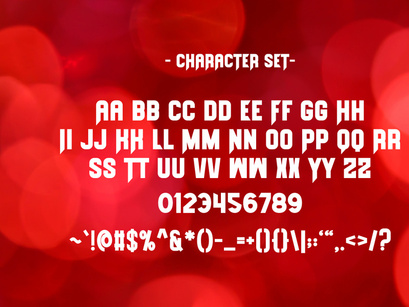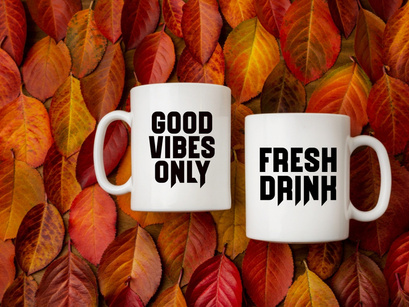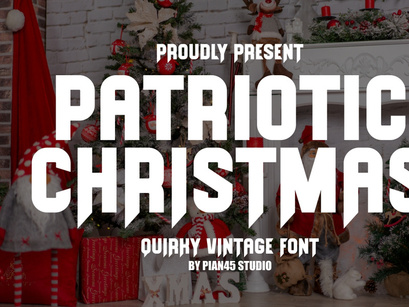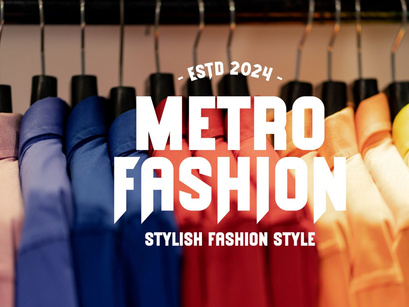
Patriotic Christmas is a bold and quirky sans serif typeface that exudes luxury and fun. Combining a modern and fun vibe, this font brings a charming and playful touch to your creations. Perfect for quotes, posters, backgrounds, movie titles, sportswear, apparel and more.